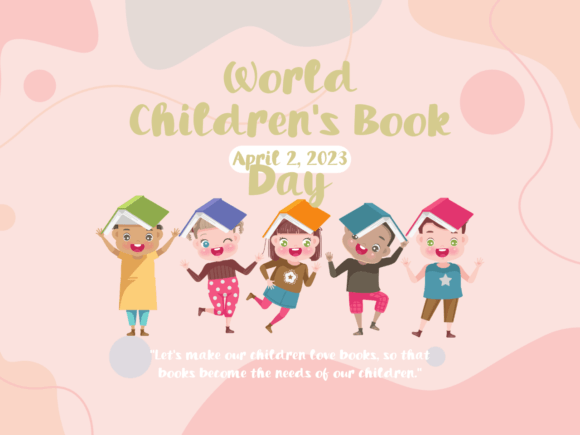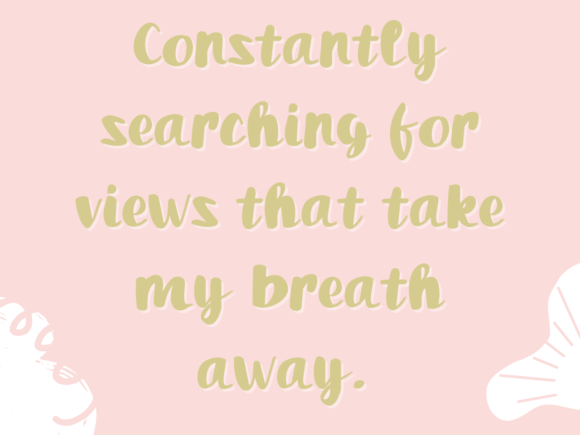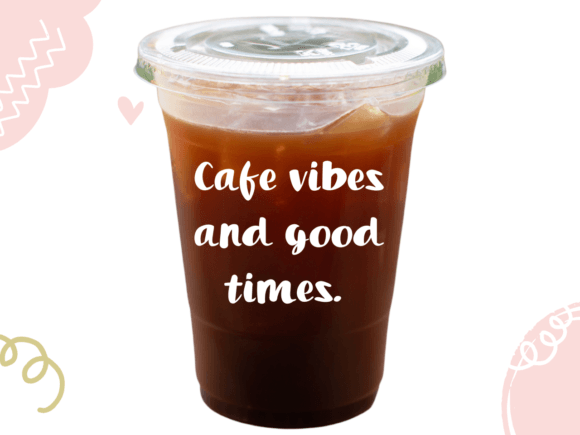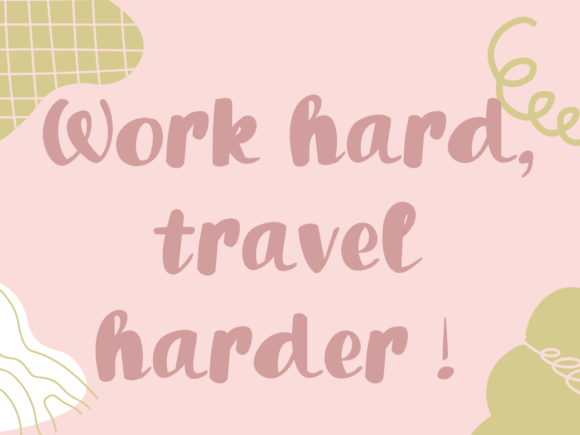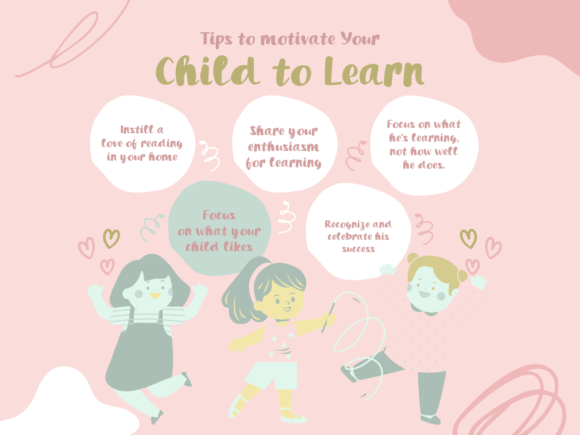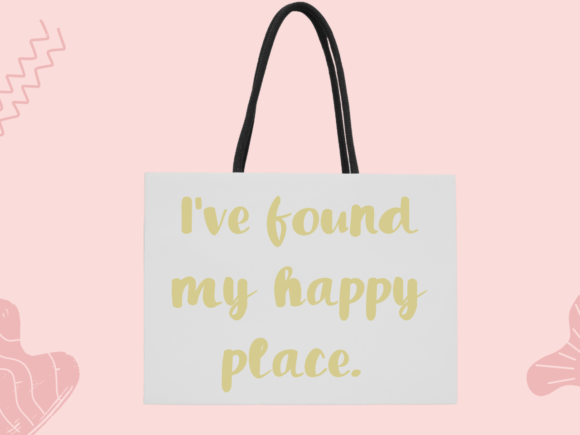
Introducing Anona Font: The Sweet and Delicate Handwritten Font for Romantic Designs
Are you a designer or crafter looking for a font that can add a touch of romance and personality to your designs? Look no further than Anona Font! This sweet and delicate handwritten font is perfect for creating beautiful wedding invitations, cards, and other designs that require a personal and emotional touch.
What Makes Anona Font So Special?
Anona Font is a unique and charming handwritten font that is designed to bring a sense of joy and elegance to your designs. Its dainty and delicate strokes make it perfect for creating romantic and whimsical designs that will capture the hearts of your audience. Whether you’re designing wedding invitations, greeting cards, or other paper crafts, Anona Font is the ideal choice.
Characteristics of Anona Font
So, what makes Anona Font so special? Here are some of its key characteristics:
- Sweet and delicate strokes: Anona Font features delicate and smooth strokes that give it a charming and elegant look.
- Handwritten feel: This font has a genuine handwritten feel that makes it perfect for creating personal and emotional designs.
- Romantic and whimsical: Anona Font is designed to evoke a sense of romance and whimsy, making it perfect for wedding invitations, cards, and other designs.
- Versatile: This font can be used for a variety of design projects, from paper crafts to digital designs.
Uses for Anona Font
Anona Font is a versatile font that can be used for a variety of design projects. Here are some ideas to get you started:
- Wedding invitations: Anona Font is perfect for creating beautiful and romantic wedding invitations that will set the tone for the big day.
- Greeting cards: This font is ideal for creating personalized greeting cards for special occasions like birthdays, anniversaries, and holidays.
- Paper crafts: Anona Font can be used for a variety of paper crafts, including scrapbooking, journaling, and card making.
- Digital designs: This font can also be used for digital designs, such as social media graphics, blog posts, and email newsletters.
Why Designers and Crafters Love Anona Font
So, why do designers and crafters love Anona Font? Here are some reasons:
- Easy to read: Anona Font is clear and easy to read, making it perfect for designs that require a personal touch.
- Unique and distinctive: This font has a unique and distinctive look that sets it apart from other fonts.
- Customizable: Anona Font can be customized to fit your design needs, including adjusting the size, color, and style.
- Support for multiple languages: This font supports multiple languages, making it perfect for designers and crafters who work with international clients.
Anona Font is a beautiful and delicate handwritten font that is perfect for designers and crafters who want to add a touch of romance and personality to their designs. With its sweet and delicate strokes, handwritten feel, and versatile uses, Anona Font is the ideal choice for wedding invitations, cards, paper crafts, and digital designs. So why wait? Download Anona Font today and start creating beautiful and romantic designs that will capture the hearts of your audience!